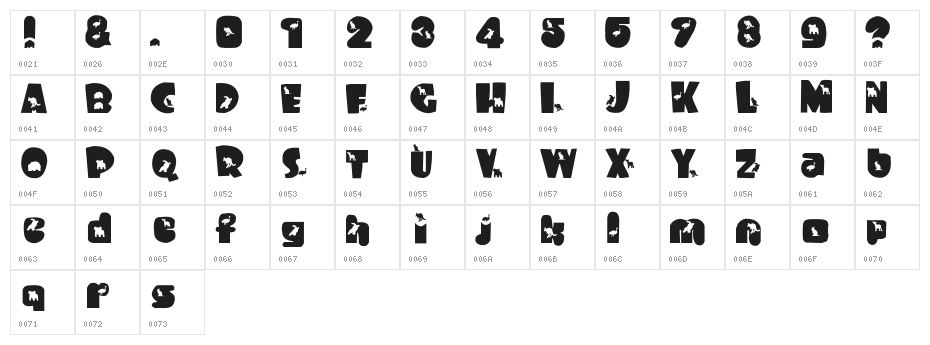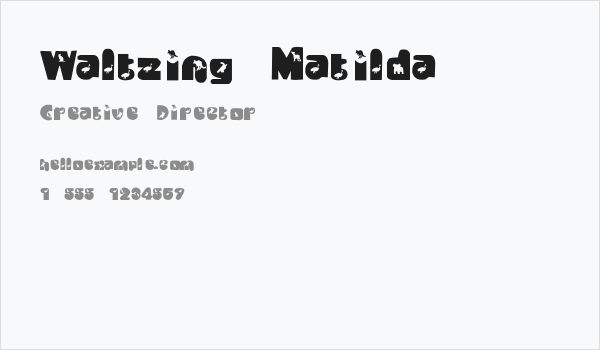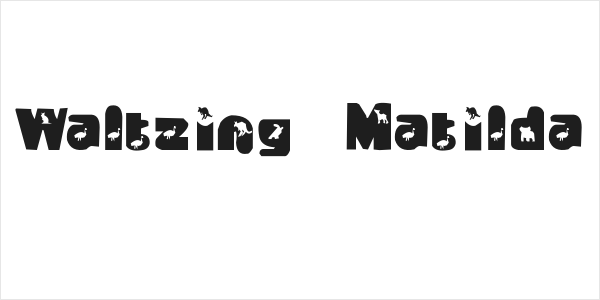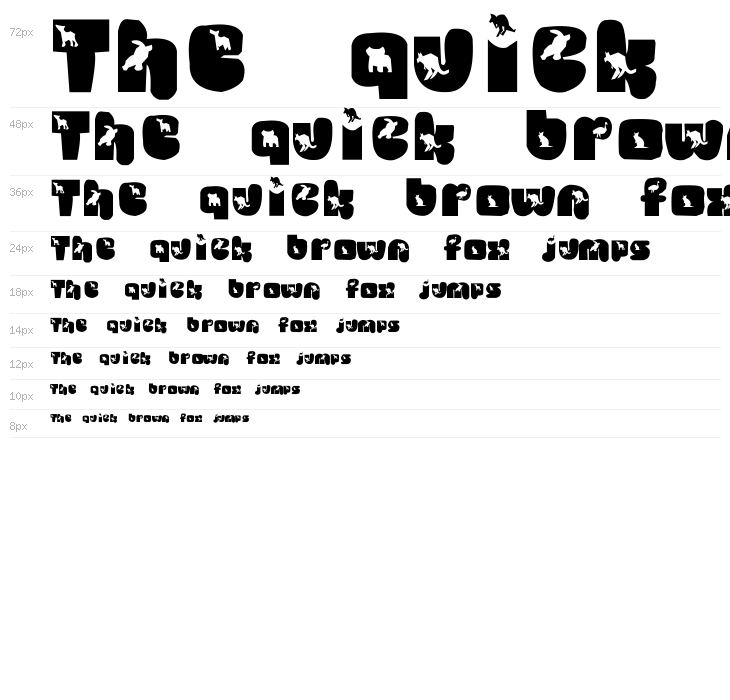
Waltzing Matilda Font
Waltzing Matilda Description
This playful and whimsical font features bold, rounded characters with unique cutouts of kangaroo silhouettes integrated into each letter and number. The design is highly decorative, capturing a sense of fun and creativity. The characters are uniformly bold, providing a strong visual impact, while the kangaroo motifs add an element of surprise and delight. This font is perfect for projects that aim to convey a sense of adventure or playfulness, making it ideal for children's books, themed events, or branding that seeks to stand out with a distinctive and memorable style.
| Proposed Projects | Ideal for children's books, playful branding, themed events, or any project needing a whimsical touch. |